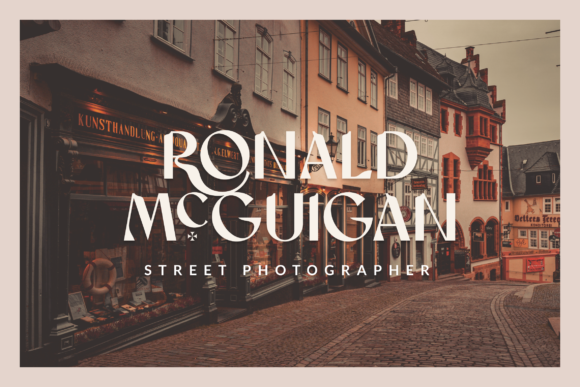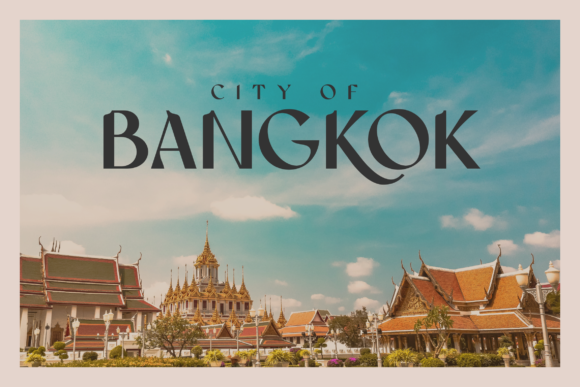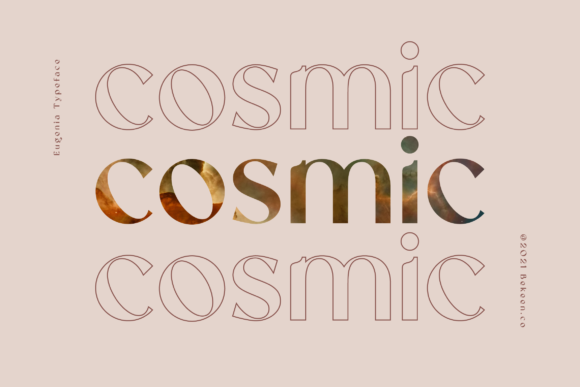
Eugenia Font: Elevate Your Designs with Elegance and Sophistication
In the world of typography, fonts play a crucial role in conveying the tone and personality of a brand or design. For designers and crafters looking to add a touch of elegance and sophistication to their projects, Eugenia Font is an excellent choice. This stunning display font is characterized by its smooth curves and unique shape, making it perfect for fashion branding, editorial designs, and more.
The Unique Charm of Eugenia Font
Eugenia Font is an elegant and refined typeface that is sure to capture attention. Its smooth curves and flowing lines give it a distinctive charm that sets it apart from other fonts. The font’s unique shape makes it an excellent choice for designers looking to add a touch of personality to their projects. Whether you’re working on a fashion brand, editorial design, or any other project that requires a high level of sophistication, Eugenia Font is an excellent choice.
Perfect for Fashion Branding and Editorial Designs
Fashion branding and editorial designs require a high level of elegance and sophistication, and Eugenia Font delivers. The font’s smooth curves and refined lines make it perfect for creating stunning headlines, titles, and captions that are sure to elevate your designs. With Eugenia Font, you can create a cohesive and stylish look that will leave a lasting impression on your audience.
Why Choose Eugenia Font?
There are many reasons why designers and crafters should choose Eugenia Font for their projects. Here are just a few:
- Elegant and sophisticated: Eugenia Font is characterized by its smooth curves and refined lines, making it perfect for designs that require a high level of elegance and sophistication.
- Unique shape: The font’s unique shape sets it apart from other fonts, making it an excellent choice for designers looking to add a touch of personality to their projects.
- Versatile: Eugenia Font is perfect for a wide range of projects, including fashion branding, editorial designs, and more.
Tips for Using Eugenia Font
To get the most out of Eugenia Font, here are a few tips:
- Use it as a display font: Eugenia Font is perfect for use as a display font, making it ideal for headlines, titles, and captions.
- Pair it with other fonts: Eugenia Font pairs well with other fonts, making it easy to create a cohesive and stylish look.
- Experiment with different sizes: The font looks great in a variety of sizes, so don’t be afraid to experiment to find the perfect size for your project.
| Font Name | Eugenia Font |
| Author | Bekeen.co |
Eugenia Font is a stunning display font that is perfect for designers and crafters looking to add a touch of elegance and sophistication to their projects. With its smooth curves and unique shape, it’s an excellent choice for fashion branding, editorial designs, and more. Whether you’re a seasoned designer or just starting out, Eugenia Font is a great addition to any design toolkit.